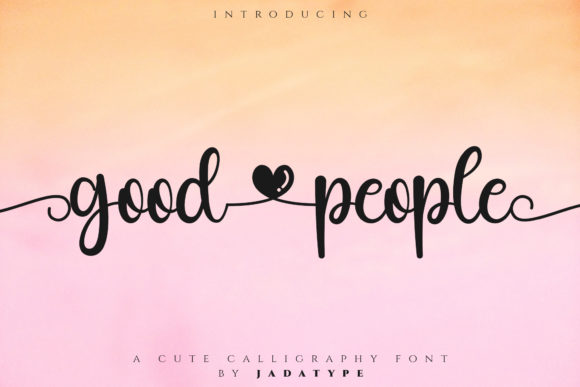
Introduce yourself to the world of "Good People," a script font family that embodies warmth, charm, and a touch of playfulness. This exquisite creation by jadatype is not just a font; it's an invitation to express your heartfelt emotions through captivating designs.
With its graceful calligraphy lines, "Good People" possesses an irresistible charm that instantly captures attention. Each character dances across the page, carrying messages of love, joy, and celebration. Its smooth and fluid strokes evoke a sense of elegance and sophistication, making it the perfect choice for crafting designs that leave a lasting impression.
Unleash your creativity and immerse yourself in the versatility of "Good People." Its diverse range of applications knows no bounds. Whether you're designing wedding invitations, greeting cards, social media posts, or branding materials, this font family has got you covered. Its playful nature adds a touch of whimsy to your crafts, while its refined style exudes professionalism in your business endeavors.
Embrace the ease and convenience of "Good People." This font is meticulously PUA encoded, ensuring effortless access to its extensive glyphs and swashes. With just a few clicks, you can incorporate stunning accents, ligatures, and alternative characters into your designs, elevating them to new heights of visual appeal.
"Good People" is more than just a font; it's a powerful storytelling tool that breathes life into your words. Its carefully crafted characters convey emotions and create a lasting connection with your audience. Whether you're a seasoned designer or just starting, this font family will empower you to create designs that resonate, inspire, and captivate.